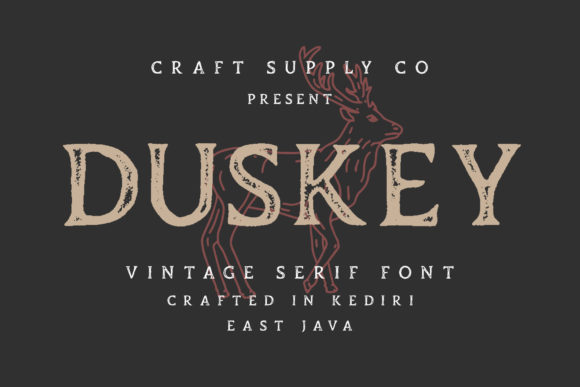
Step into a realm of elegance and distinction with Duskey Font, a captivating serif masterpiece crafted by craftsupplyco. This font family is not just a collection of letters; it's an artistic expression that transforms words into captivating visuals, leaving an indelible mark on your designs.
Duskey Font's carefully crafted serif strokes exude a timeless charm, reminiscent of classic literature and vintage aesthetics. Its rough edges add a touch of intrigue, creating a captivating contrast that draws attention to your text. Whether you're a designer seeking to elevate your projects or a creative mind looking to make a statement, Duskey Font is your perfect companion.
Let Duskey Font be your muse as you weave enchanting tales and captivating messages. Its versatility extends from branding projects and logos to posters, invitations, and social media graphics. With Duskey Font, ordinary text transforms into a symphony of elegance, leaving a lasting impression on your audience.
Immerse yourself in the world of artistic expression with Duskey Font. Let your imagination soar as you explore its endless possibilities. Discover the magic of typography and elevate your designs to new heights. Duskey Font is more than just a font; it's a gateway to a world of creativity and visual delight. Embrace its allure and watch your designs bloom with sophistication and grace.